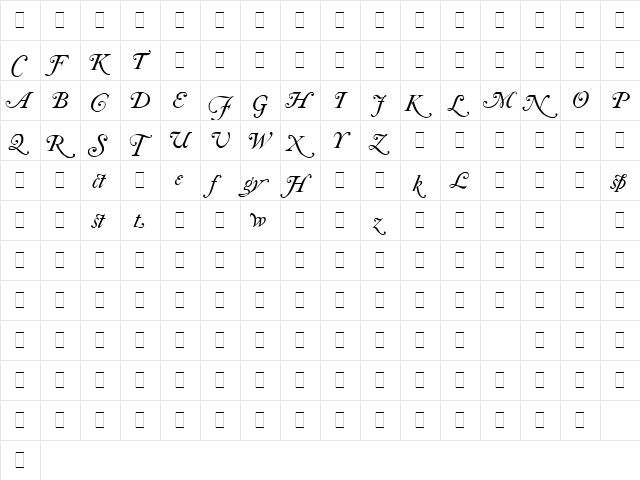
Caslon Italic Swashes LET Plain
Design Context for Caslon Italic Swashes LET Typeface
Caslon Italic Swashes LET brings a calligraphic fluidity to the page — its connecting strokes and expressive curves give it an unmistakably human quality.